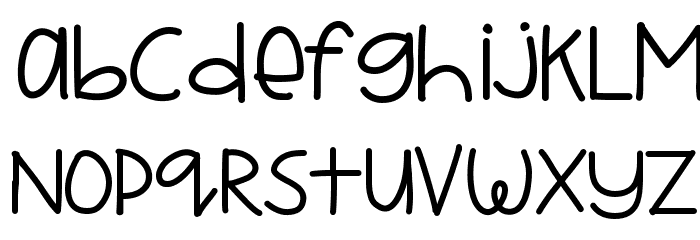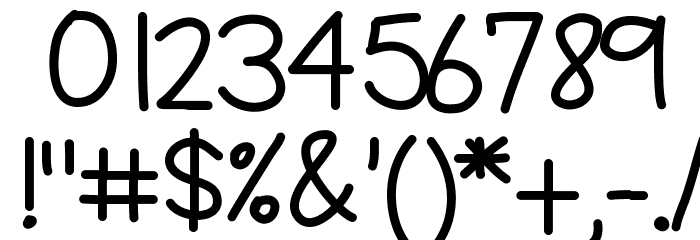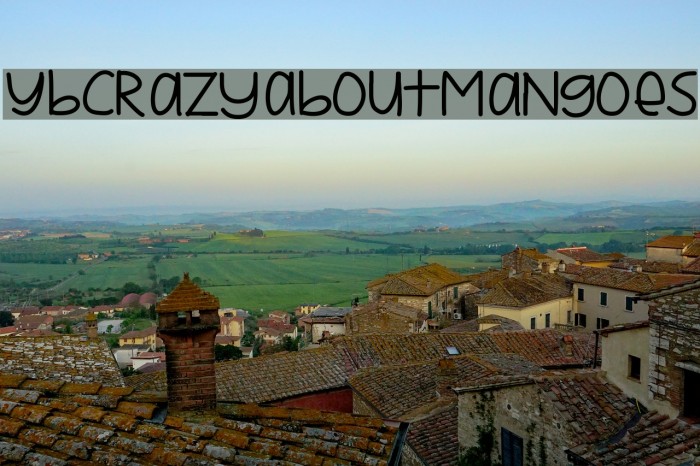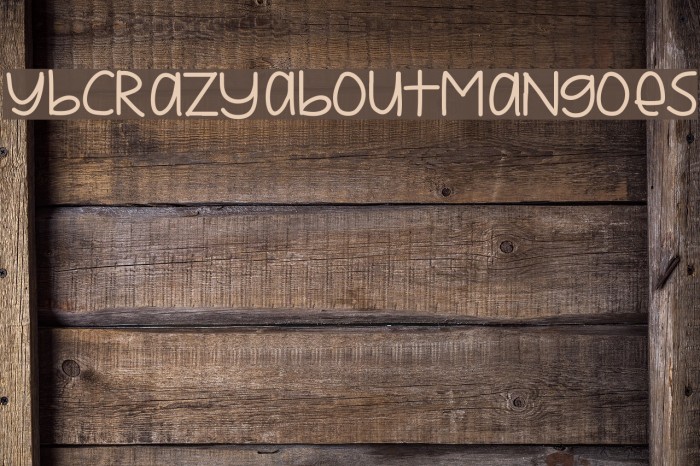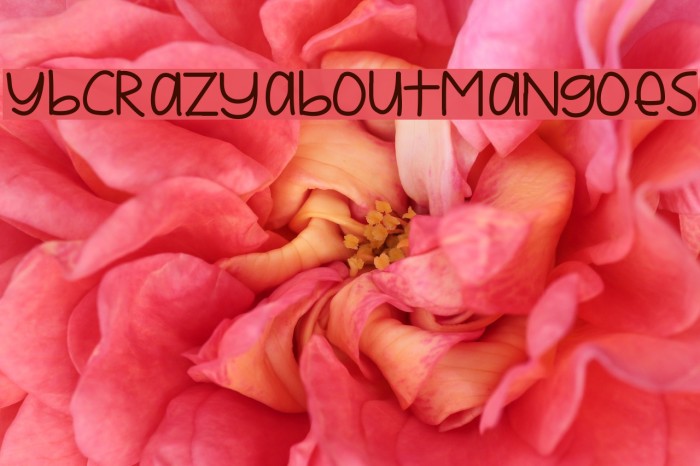
YBCrazyAboutMangoes Font
This playful and whimsical font features a handwritten style with rounded edges and a casual, friendly appearance. The characters are slightly irregular, giving it a personal and approachable feel. The uppercase and lowercase letters maintain a consistent style, with a slight tilt that adds to its informal charm. Numbers and special characters are designed to match the overall aesthetic, making it versatile for various uses. The font's simplicity and readability make it suitable for both digital and print media, adding a touch of personality to any project.
A playful, handwritten font with rounded edges and a casual style.
- Proposed Projects: Ideal for children's books, greeting cards, playful branding, and social media graphics.
- Overall Style: Playful
- Use Case: Headlines, Logos, Informal Text